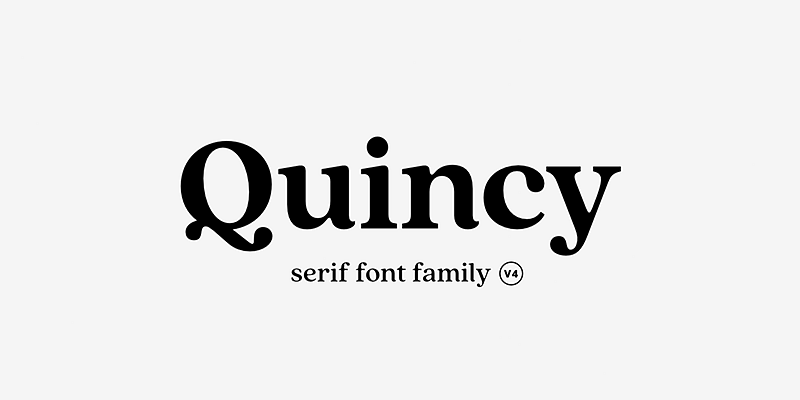
Quincy CF Font Free Download is a clean, modern serif typeface designed to offer a classic yet contemporary look. Featuring smooth curves, elegant proportions, and well-defined serifs, this font is perfect for high-end branding, editorial design, invitations, and any project that requires a sophisticated and polished aesthetic.
Quincy CF Font Free Download combines traditional serif elements with a modern design sensibility, making it highly versatile for both print and digital media. Its clarity and legibility make it an excellent choice for headlines, body text, logos, and signage.
Whether you’re designing for a luxury brand, working on a creative publication, or producing marketing materials, Quincy CF brings elegance and professionalism to your typography.